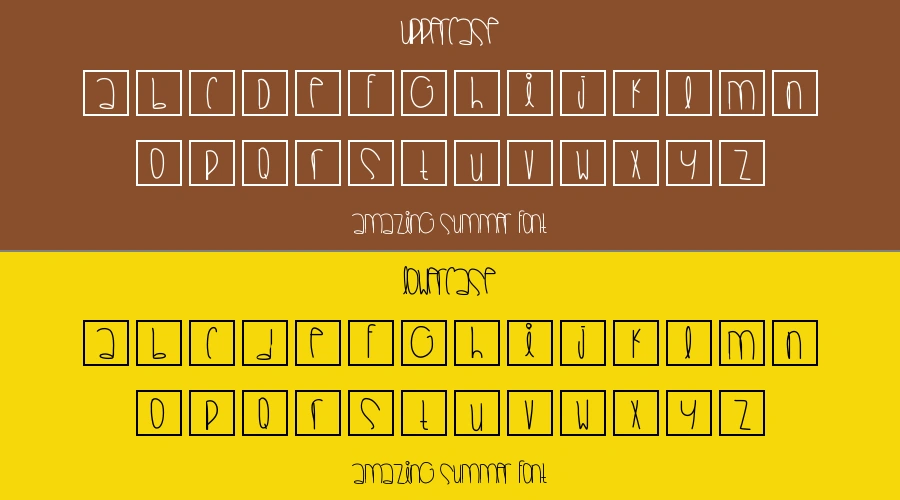
About Amazing Summer Font
Amazing Summer Font embodies typographic excellence through its masterful combination of perfect spacing and expressiveness. Created for legal documents, this typeface delivers exceptional functionality and brand power across all applications. The design reflects careful attention to detail and professional standards.
Advanced capabilities include distinctive humanist proportions and versatile oldstyle figures, giving designers creative control. When used in formal invitations, Amazing Summer Font exhibits remarkable compatibility. The harmonious balance between beak formation and brand personality sets this typeface apart.